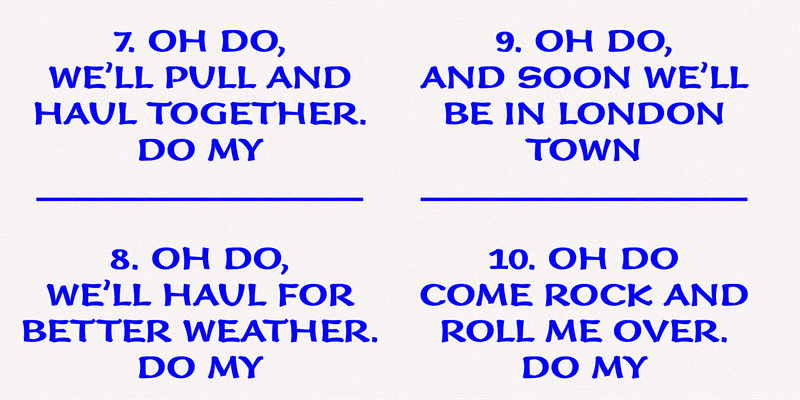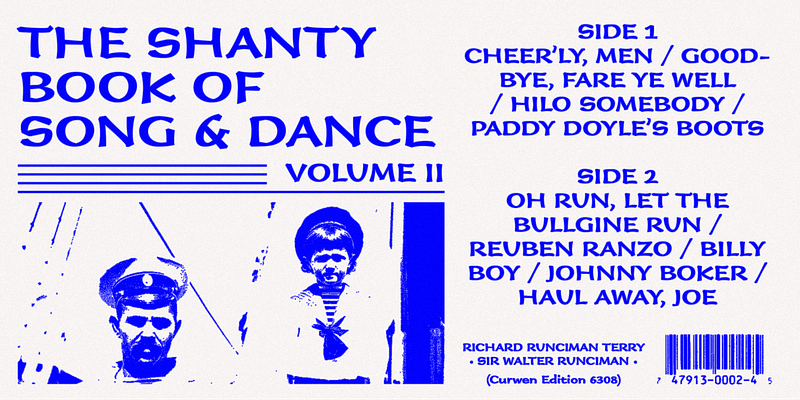
Immi 505 is another of Tim Donaldson’s prolific works. Inventive and fun-loving as always, Tim used a pen nib called a “505” in a unique way to create the letterforms for this design. (The other part of the name, Immi, is the nickname of Donaldson’s daughter Imogen.) The resulting unusual curves and open character of Immi 505 create a distinctive rhythm and color appropriate for short blocks of ad copy, or for titles, music CD covers, and Web page headlines where a bit of extra width is needed. U.S. Patent Design 412,152.